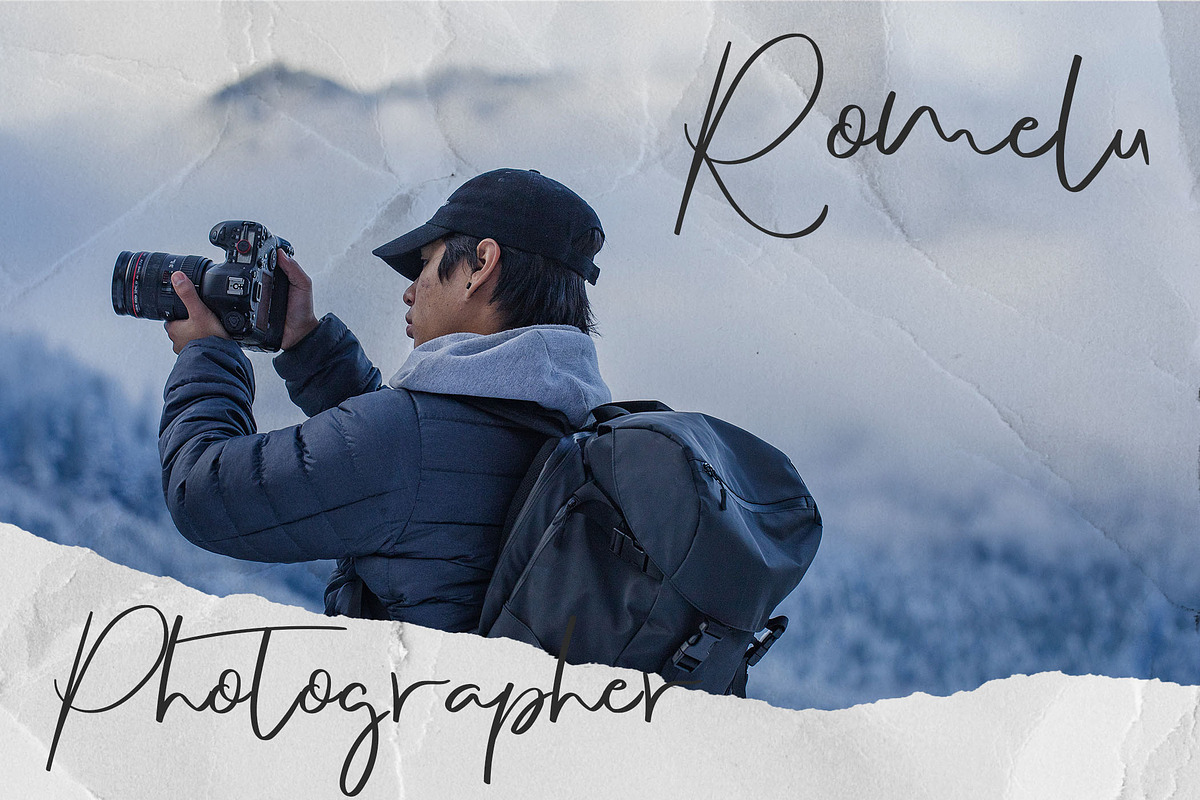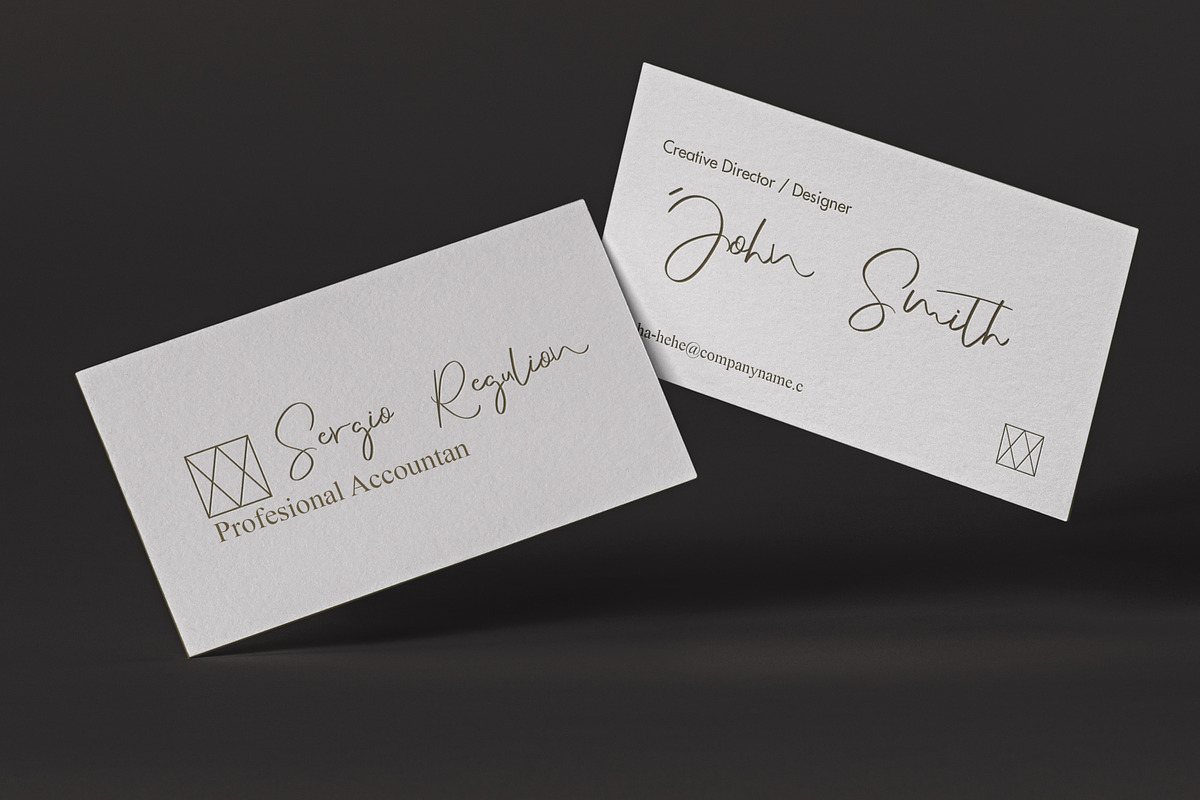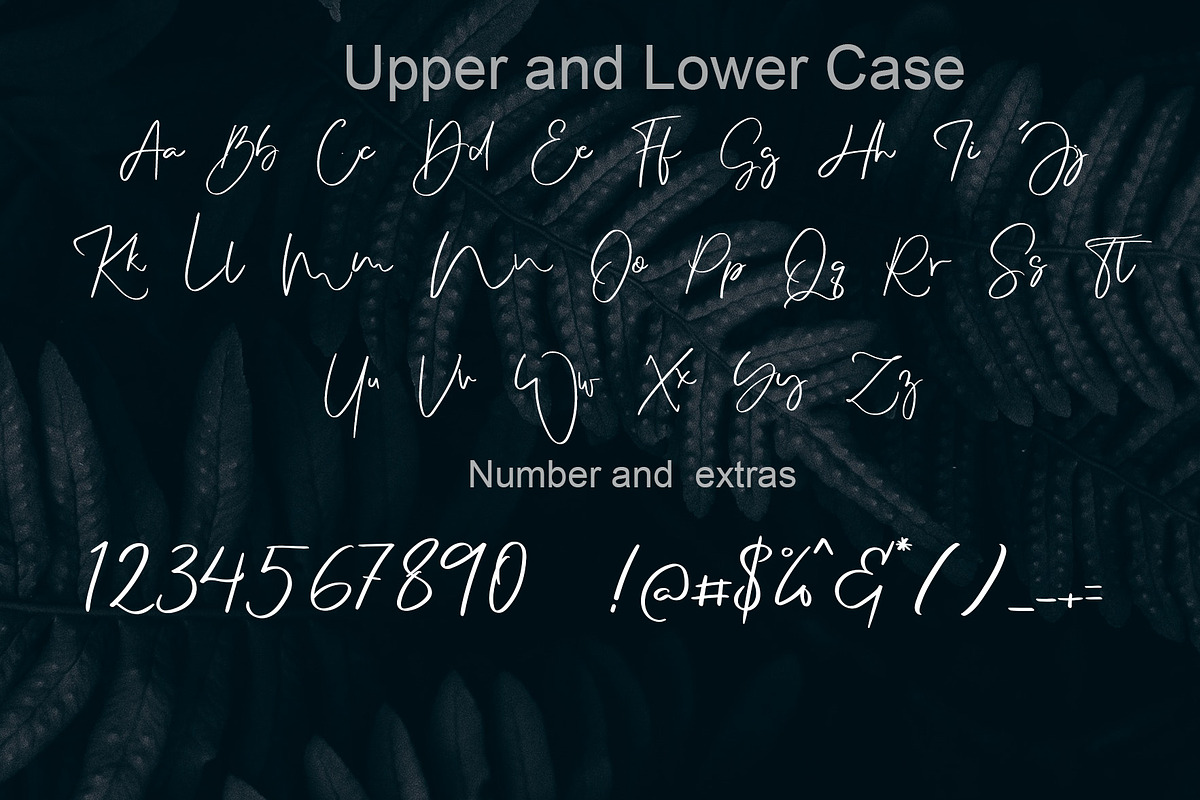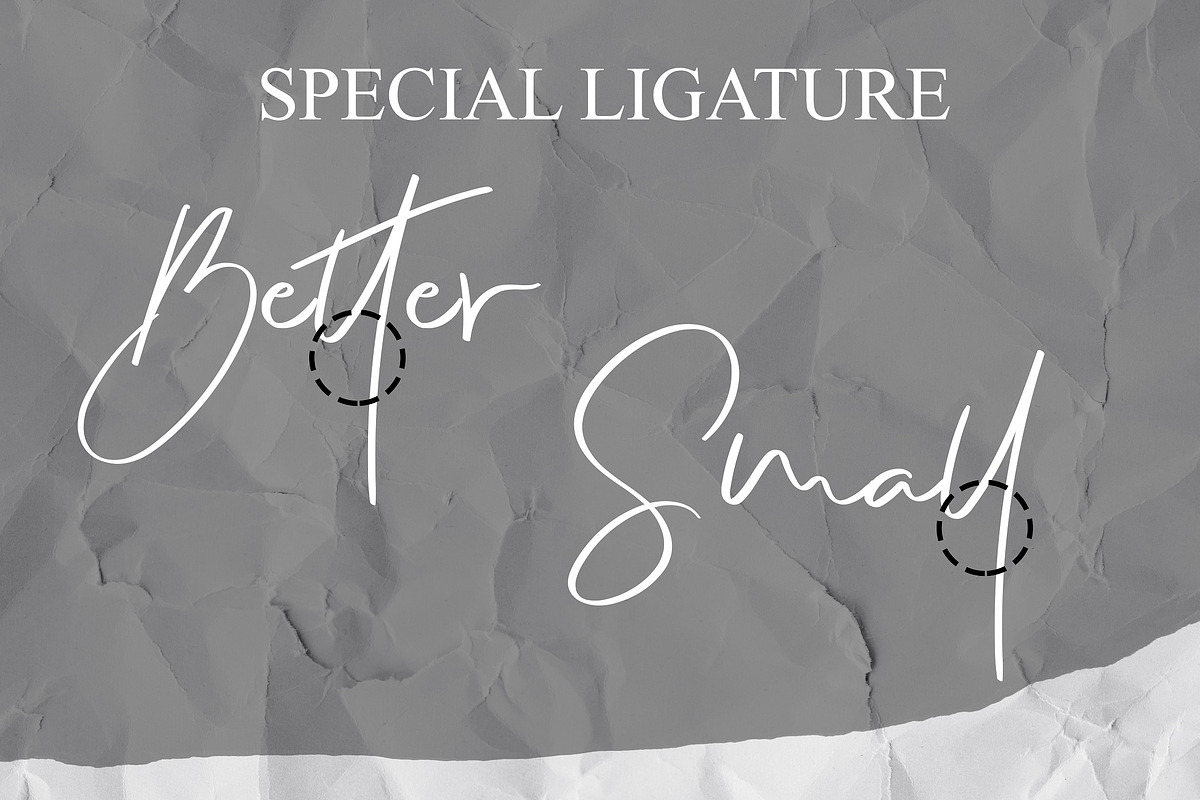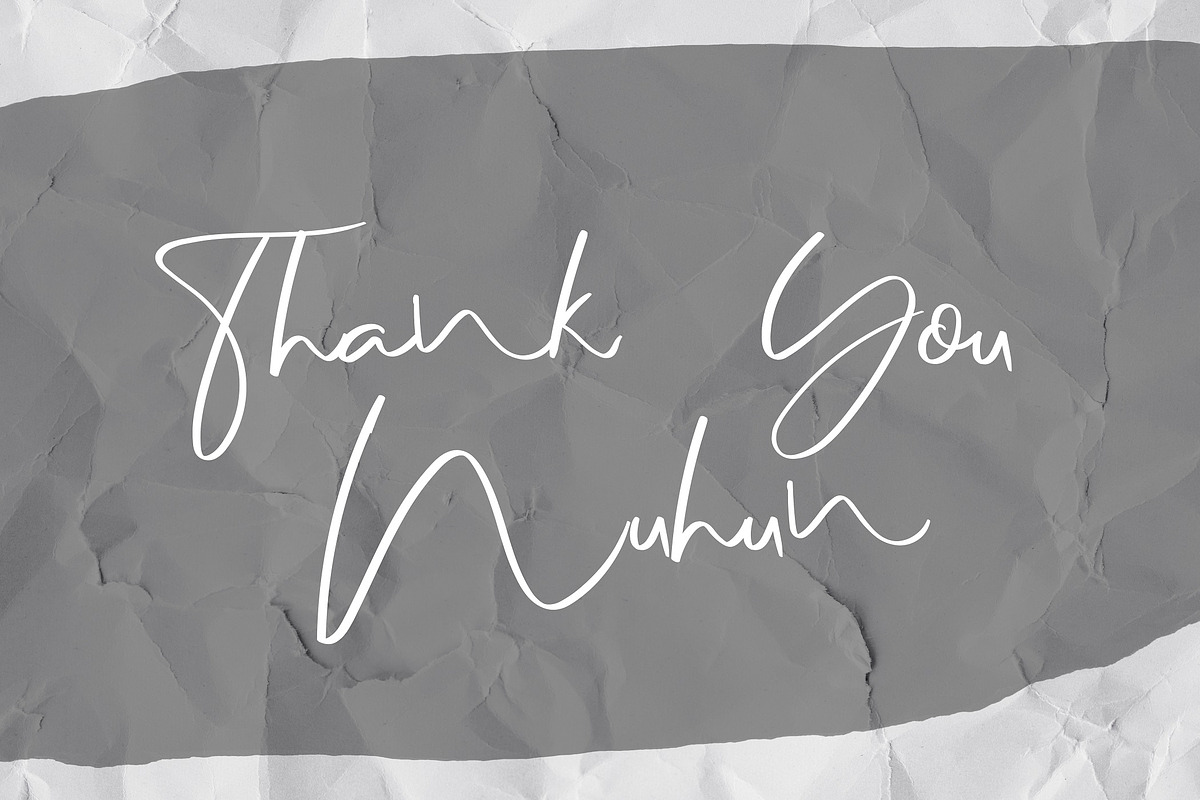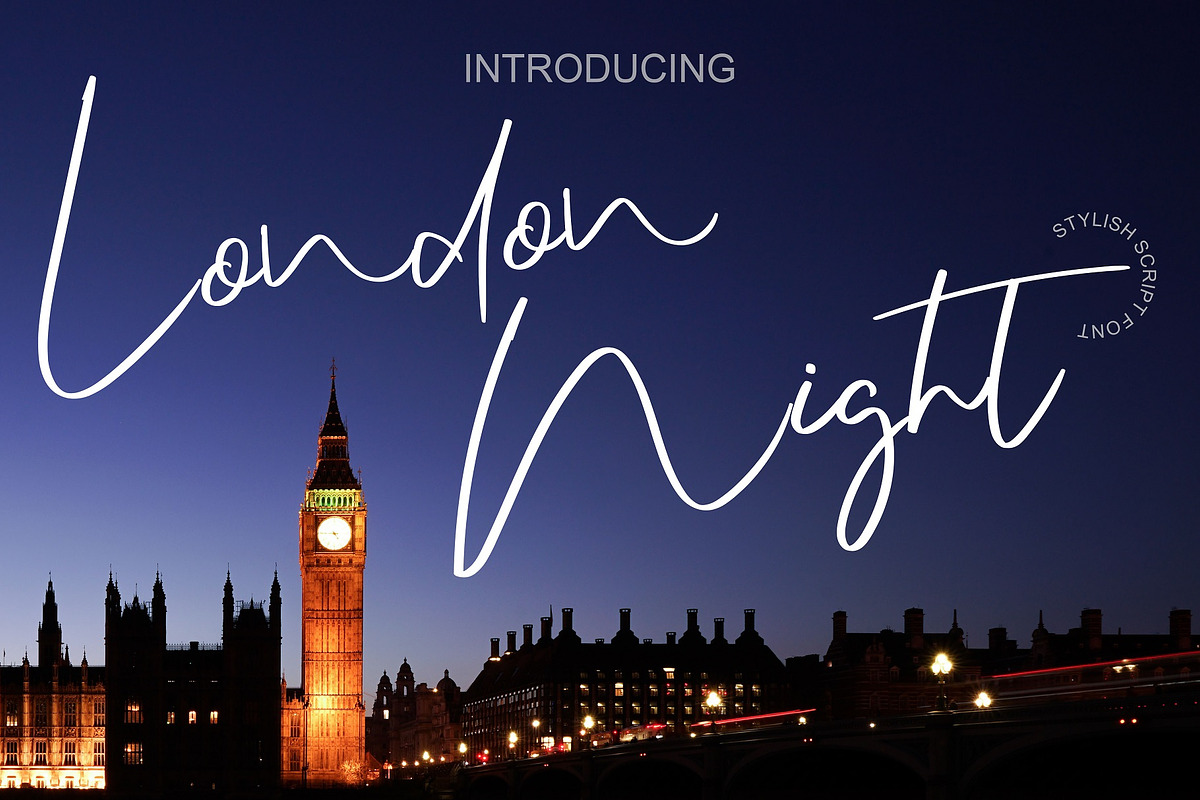
London Night
Introducing of our new product the name is London Night a lovely signature script. London Night inspired by modern calligraphy and signature style this font is a fun theme very good for display, tshirt design, craft, quote sign, logotype and etc. I hope this font will increase your design or product.